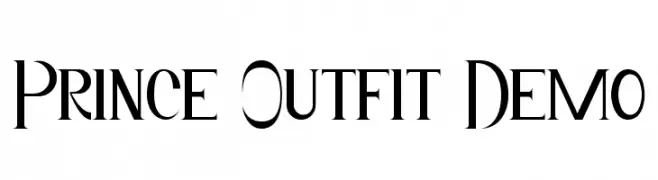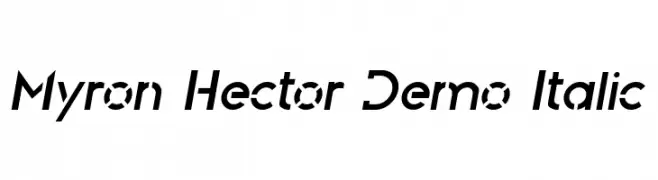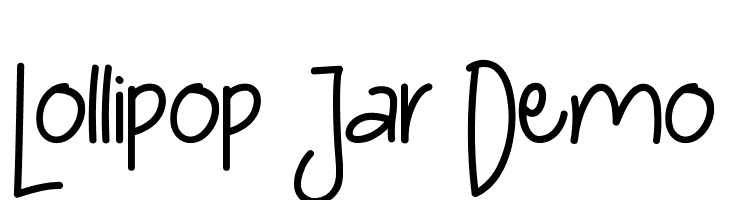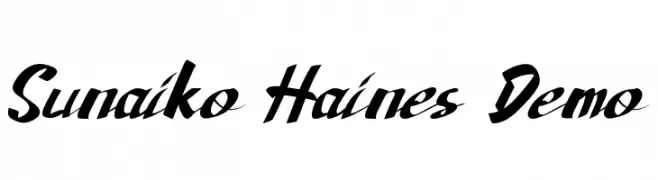
A modern-vintage font with elegant, high-contrast letterforms and sharp serifs.
A flowing, cursive script font with elegant, connected strokes.
A playful, handwritten font with rounded edges and a casual, friendly appearance.
A modern decorative font with clean lines and subtle curves.
A bold, playful font with modern and vintage elements, ideal for impactful designs.
A charming and elegant script font with flowing, cursive letterforms.
An elegant, flowing script font with graceful curves and loops.
An elegant, flowing script font with high contrast and graceful curves.
A whimsical and elegant script font with flowing, interconnected letterforms.
A modern, bold italic font with geometric shapes and sharp angles.